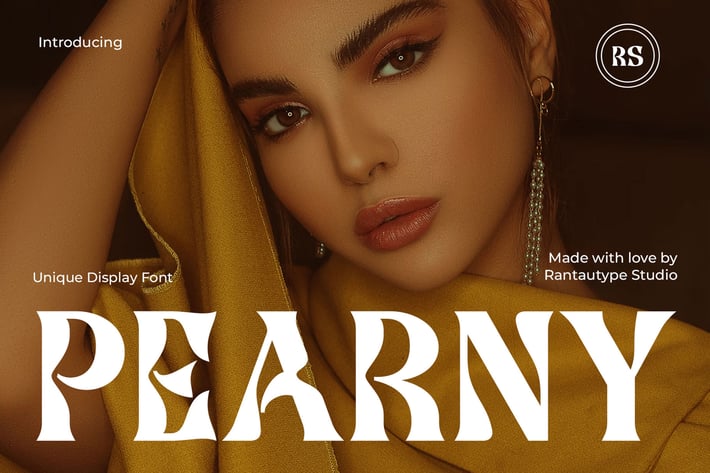
Pearny Unique Serif Font
Pearny is modern display font with unique character. Pearny bring bold and unique into typography to make a different shape but elegant look. Pearny is a perfectly choice for any creative endeavor, chic, lifestyle design such as logotype, advertisements, watermark on photography, stationery, branding project, display and magazine, invitation, corporate brand, product design, label, business project and many other project with unique touch.